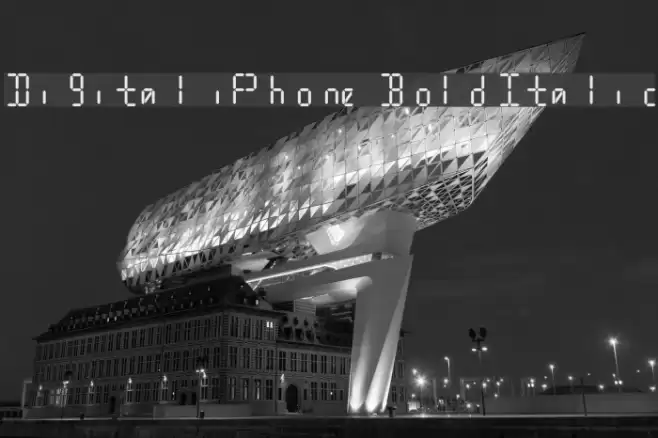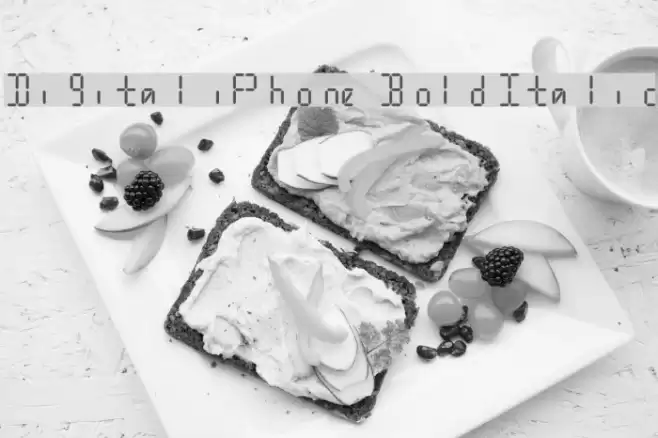
Digital iPhone Bold Italic Font
Digital iPhone Bold Italic Description
This font features a digital, segmented style reminiscent of LED displays. Each character is composed of distinct segments, creating a geometric and technical appearance. The uppercase and lowercase letters maintain a consistent structure, with slight variations in height and width. Numbers and special characters follow the same segmented design, ensuring uniformity across the entire set. The font's bold and italic attributes enhance its visibility and add a dynamic touch, making it suitable for digital-themed projects.
A segmented, digital-style font with bold and italic characteristics from Uncategorized fonts.
- Proposed Projects: Ideal for digital displays, tech-themed designs, electronic interfaces, and futuristic branding.